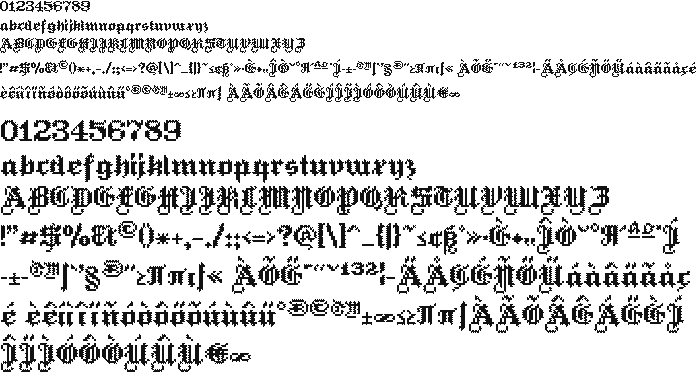
HeinzHeinrich Font
Pixelfont for aliased displays with 8pt or multiple of 8. Includes basic latin characters and some special german glyphs. This font is dedicated to my father.